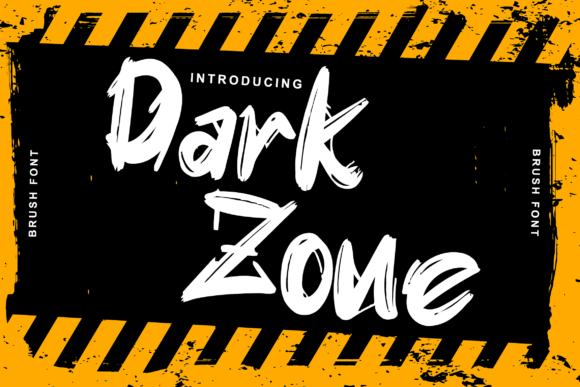
Step into the Dark Zone, where creativity and boldness meet. This display font, designed by Home Work Creative Studio, is infused with a rebellious spirit and is ready to unleash a new level of visual impact in your design projects. Dark Zone is the perfect font for injecting a healthy dose of individuality and personality into your designs. Whether you're crafting logos that demand attention, creating posters that scream for recognition, or designing greeting cards that leave a lasting impression, Dark Zone is your partner in crime. This font is a digital masterpiece that can seamlessly blend into any medium, be it print or digital, making it an ideal choice for a variety of projects.
Unleash your imagination and let Dark Zone's dynamic and natural curves take your designs to new heights. Its captivating lines and intriguing angles are sure to leave an indelible mark on your audience, ensuring your projects stand out from the crowd. With Dark Zone as your ally, you'll find yourself reaching for new levels of creativity and producing designs that resonate with your audience, leaving them craving more.